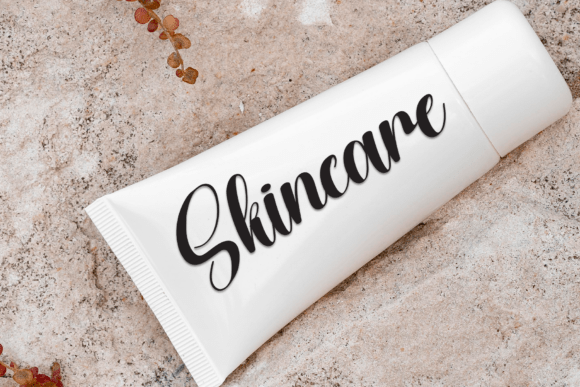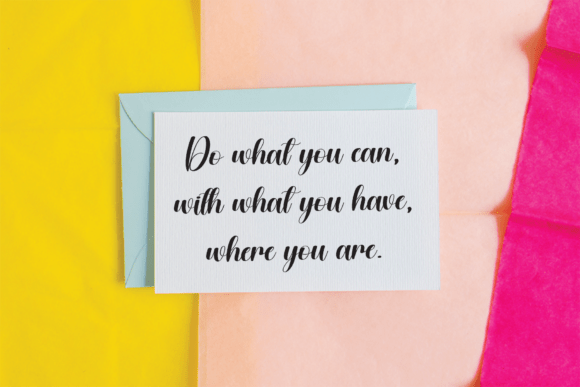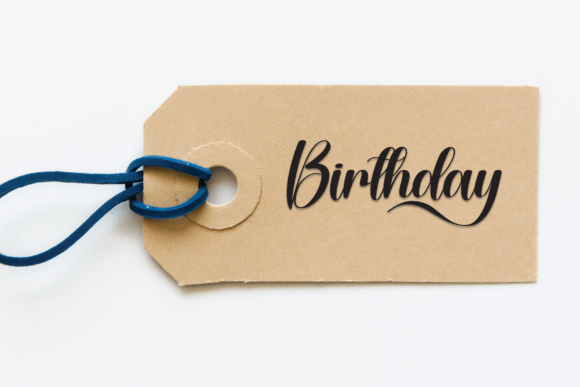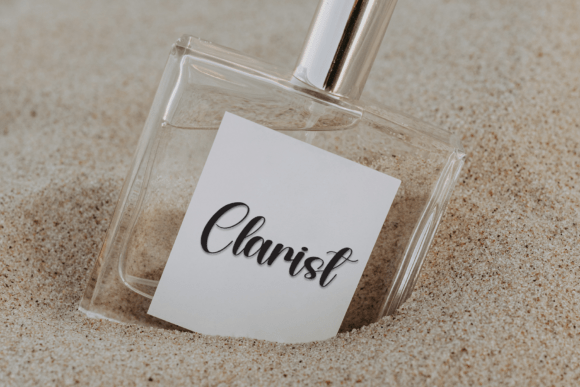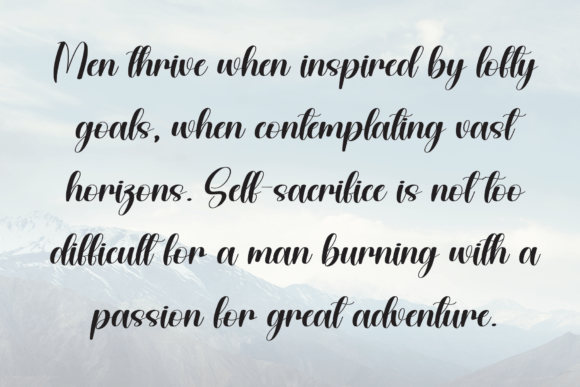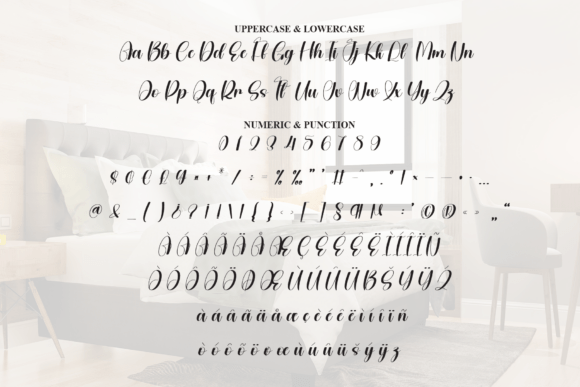
The Perfect Brushstroke for Your Next Design
As a designer, there’s no better feeling than bringing a project to life with the perfect font. The moment when the words start flowing, and the typeface begins to tell a story, is pure magic. You’re searching for that special something that sets your design apart, and today, we’re excited to introduce you to a font that will make your creative heart skip a beat.
Meet the Angela Homestay Font, a stylish script font that embodies artistic flair and contemporary elegance. With its fluid brush strokes, dynamic curves, and expressive letterforms, this font captures the essence of hand-painted calligraphy with a modern twist. Whether you’re designing logos, invitations, packaging, or social media graphics, the Angela Homestay Font adds a creative and sophisticated touch that’s sure to elevate your designs.
As a valuable addition to any designer’s toolkit, the Angela Homestay Font delivers both visual impact and versatility. Its natural flow and vibrant character make it the perfect choice for a wide range of projects, from branding and marketing to editorial and digital design.
Angela Homestay Font Key Features
- Font Family: Angela Homestay Font is a unique, hand-drawn script font designed to evoke a sense of warmth and comfort.
- Unique Characteristics: Angela Homestay Font features a mix of elegant and playful elements, making it perfect for creative projects, such as invitations, posters, and social media graphics.
- Character Set: Includes a comprehensive set of characters, including uppercase and lowercase letters, numbers, punctuation marks, and a range of special characters.
Angela Homestay Font Review
Overall, the Angela Homestay Font has a certain charm to it, reminiscent of handwritten notes and friendly invitations. I appreciate the unique, hand-crafted feel it brings to digital design. ✨ The font’s imperfections and slight variations in letterforms add a touch of personality, making it stand out from more uniform fonts.
Here are some of its strengths:
- ✨ Unique, hand-crafted feel that adds personality to digital design
- ✨ Friendly and approachable tone, suitable for invitations, notes, and social media
- ✨ Wide range of languages supported, making it a versatile option for global audiences
However, the Angela Homestay Font also has some limitations:
- ⚠️ Limited scalability, as the font’s unique feel can become distorted at larger font sizes
- ⚠️ May not be the best choice for formal or professional applications, as its casual tone can come across as unprofessional
- ⚠️ Some characters may not render correctly in certain operating systems or browsers
In conclusion, the Angela Homestay Font is a charming and unique option for designers looking to add a personal touch to their work. While it has its limitations, it can be a great choice for the right project. Just be sure to use it thoughtfully and consider its potential drawbacks.
Tips for Getting the Most Out of Angela Homestay Font
To get the most out of Angela Homestay Font, consider the following tips:
- Use the font in combination with other design elements to create a cohesive look.
- Experiment with different font sizes and styles to achieve the desired emphasis.
- Use the font in headings and subheadings to create visual hierarchy.
Common Use Cases for Angela Homestay Font
Angela Homestay Font is
Alternatives to Angela Homestay Font for Designers
Lato is a clean and modern sans-serif font that is highly legible and versatile. It is ideal for use in body text, headings, and titles, making it a great alternative to Angela Homestay Font. Lato is available in various weights and styles, allowing designers to create a consistent look across their designs.
Comparison to Angela Homestay Font: Lato is more modern and sleek, with a more open and airy feel. It is also more versatile, making it suitable for a wider range of design projects.